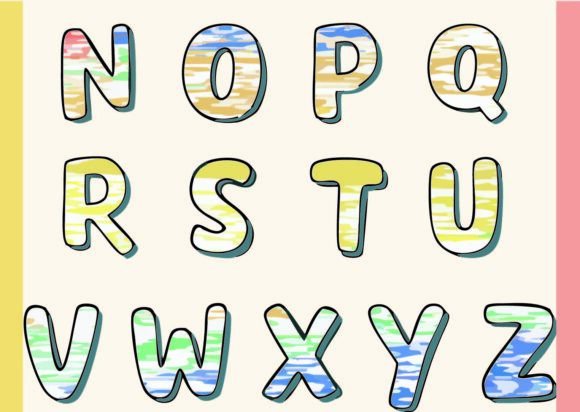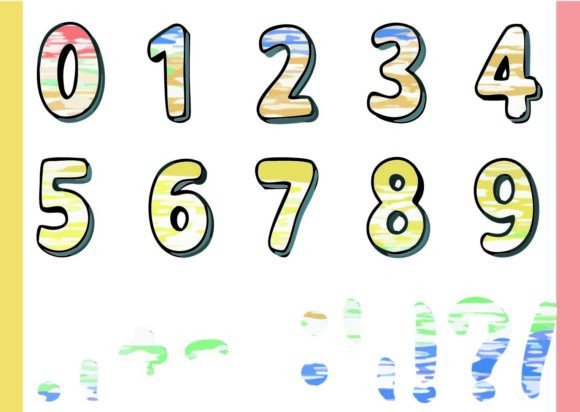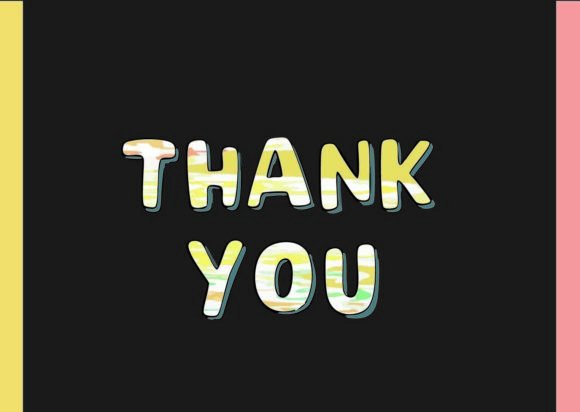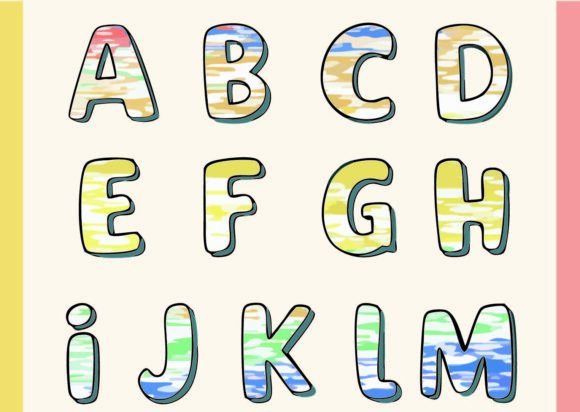
Introducing Hadeley Font: A Colorful Heaven for Designers and Crafters
Are you tired of using the same old boring fonts in your designs? Look no further! Hadeley Font is a game-changing color font that will take your typography to the next level. This chromatic font is a masterpiece, with every single glyph featuring a unique set of colors that will make your designs pop.
What is Hadeley Font?
Hadeley Font is a color font, also known as a chromatic font, which means that it’s not just a simple font with a single color. Instead, every glyph in the font has its own distinct set of colors, creating a stunning visual effect. This font is perfect for designers and crafters who want to add a touch of personality and whimsy to their work.
A Colorful Heaven
If you take a close look at the glyphs in Hadeley Font, you’ll notice that each one is like a tiny painting. The complex sets of paths and connections in every glyph create a beautiful, intricate design that’s sure to impress. Whether you’re working on a graphic design project, a crafting project, or just want to add some personality to your digital art, Hadeley Font is the perfect choice.
Compatibility and Uses
So, what can you use Hadeley Font for? The possibilities are endless! Here are a few ideas to get you started:
- Graphic design projects, such as brochures, flyers, and posters
- Crafting projects, such as card making, scrapbooking, and iron-on designs
- Digital art, such as illustrations and paintings
- Web design, such as headings, titles, and social media graphics
Why Choose Hadeley Font?
So, why should you choose Hadeley Font over other fonts? Here are just a few reasons:
- Unique and eye-catching designs that will make your work stand out
- Compatible with a range of popular design software
- Perfect for designers and crafters who want to add a touch of personality to their work
Tips for Using Hadeley Font
Here are a few tips for getting the most out of Hadeley Font:
- Experiment with different colors and combinations to find the perfect look for your project
- Use the font to add a touch of whimsy and personality to your designs
- Don’t be afraid to get creative and try new things – Hadeley Font is all about experimentation and self-expression!
In conclusion, Hadeley Font is a game-changing color font that’s perfect for designers and crafters who want to take their typography to the next level. With its unique and eye-catching designs, compatibility with popular design software, and ease of use, Hadeley Font is a must-have for anyone looking to add a touch of personality and whimsy to their work. So why wait? Download Hadeley Font today and start creating your own colorful masterpieces!